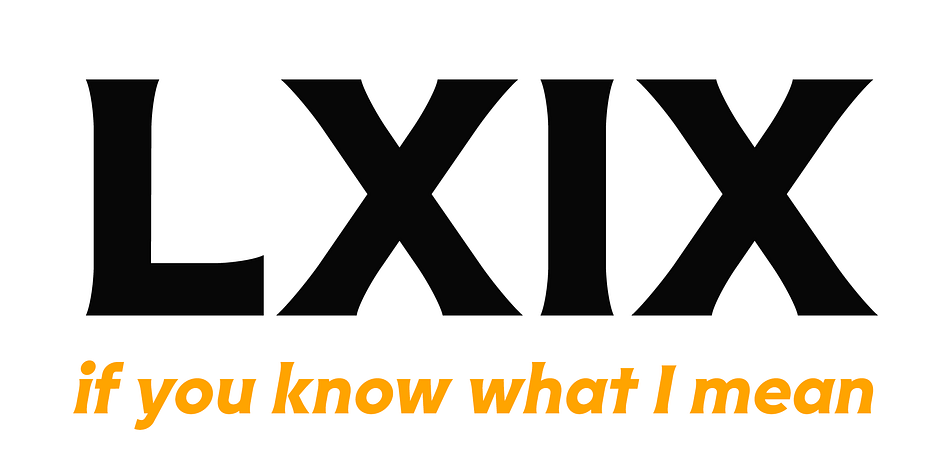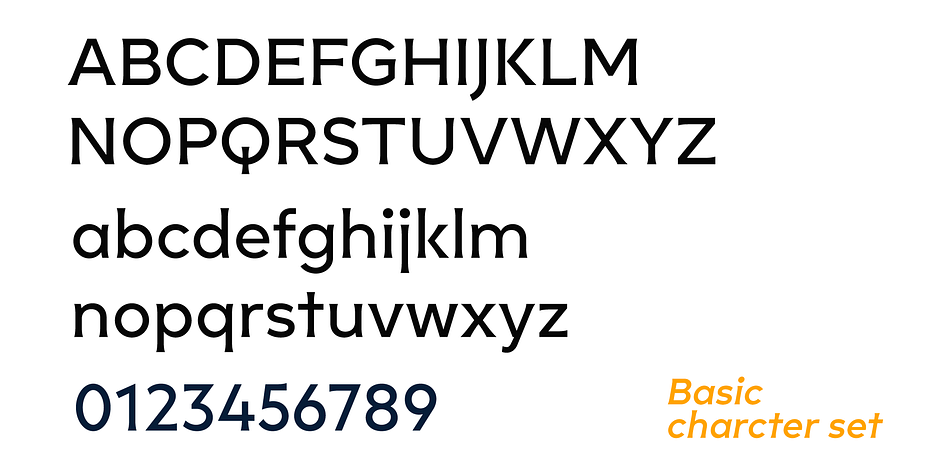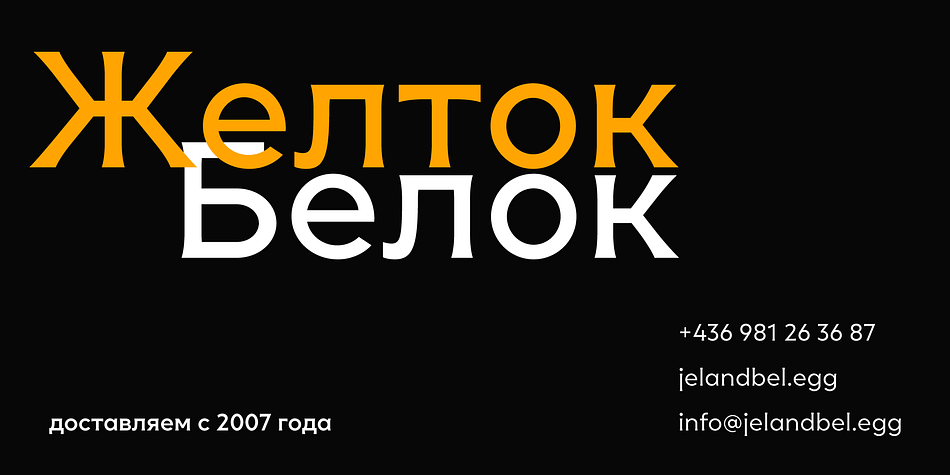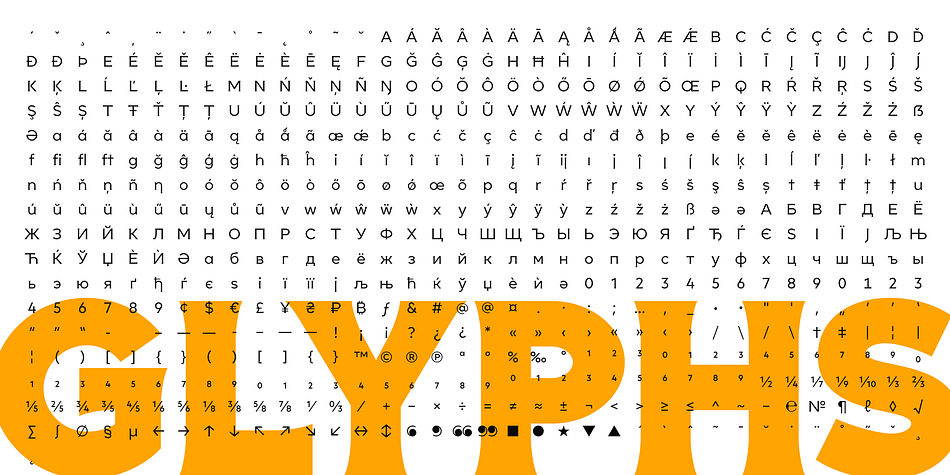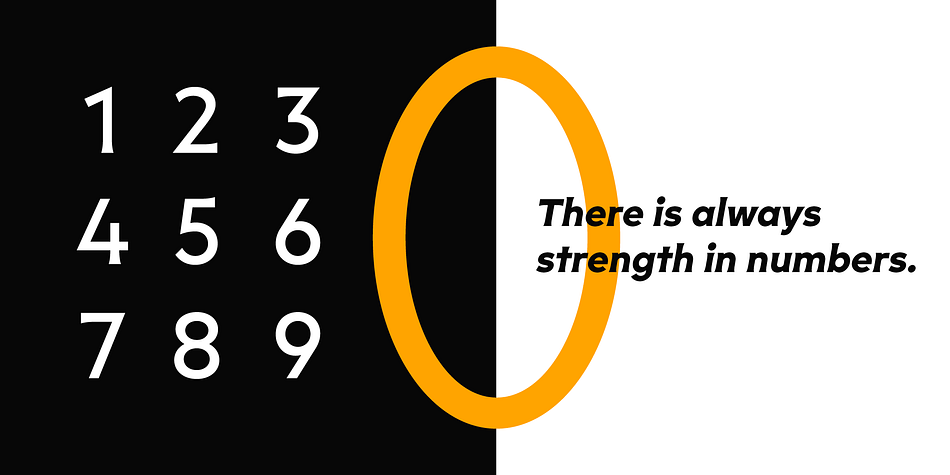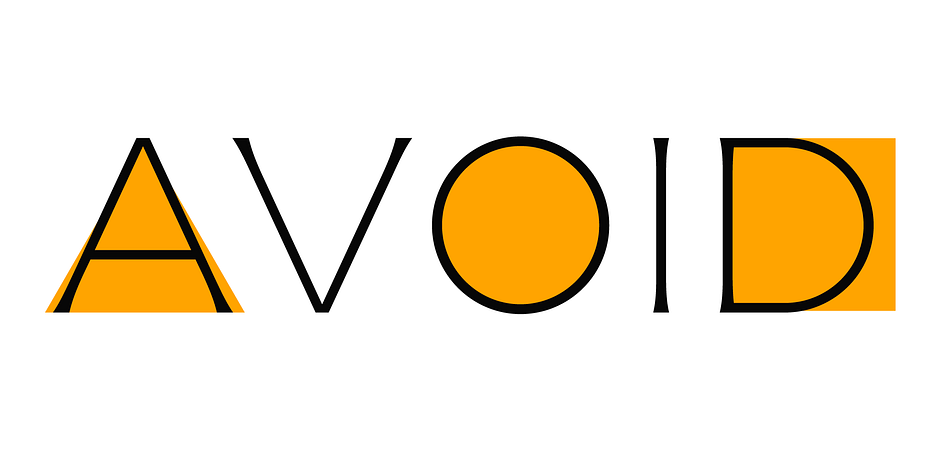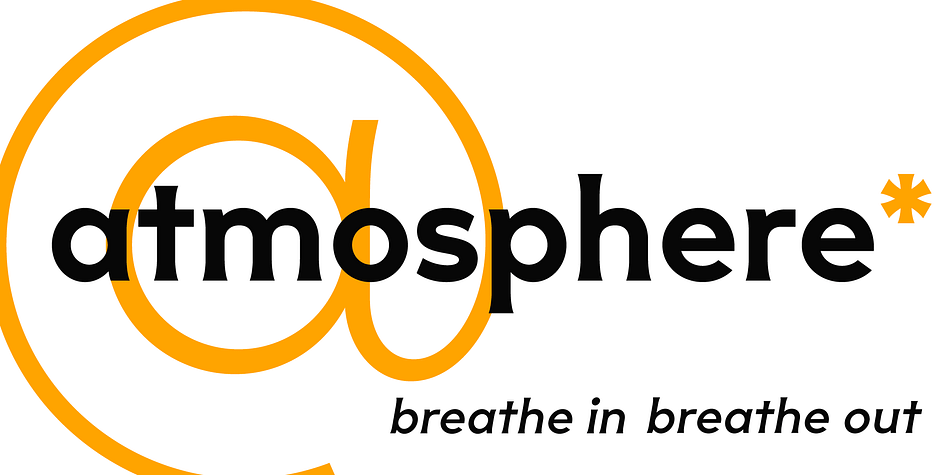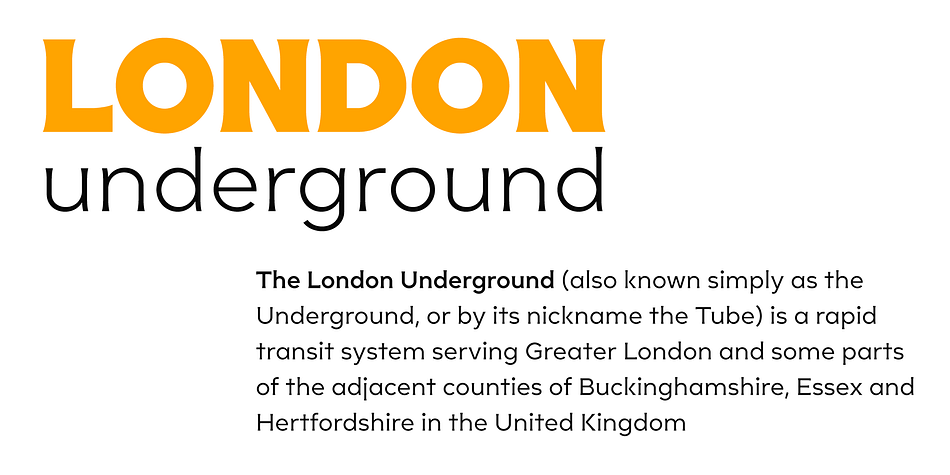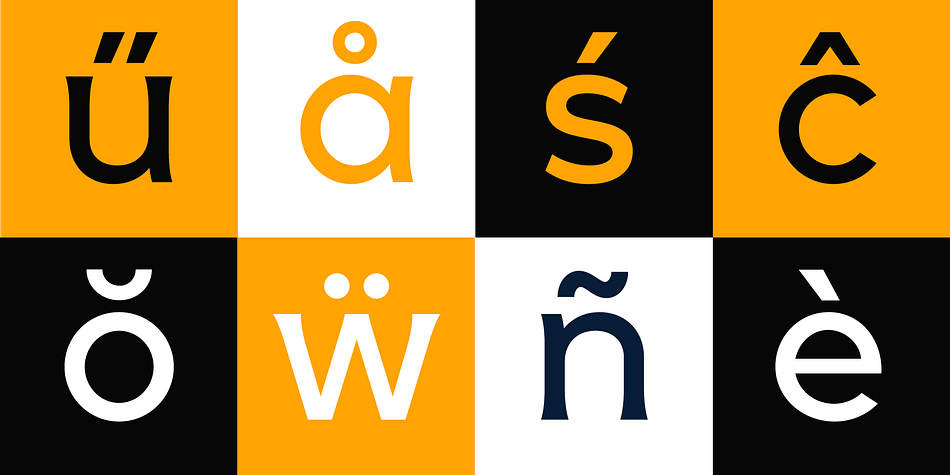
Zerno is a serif font family. This typeface has eighteen styles and was published by Pepper Type.
Zerno is a glyphic typeface with geometric roots. Its symmetrical flared serifs are reminiscent of stone carving techniques. With weights ranging from Thin to Black, it is versatile enough to be used in any environment - from screen to literal stone carving, as well as from posters to body copy that stands out.